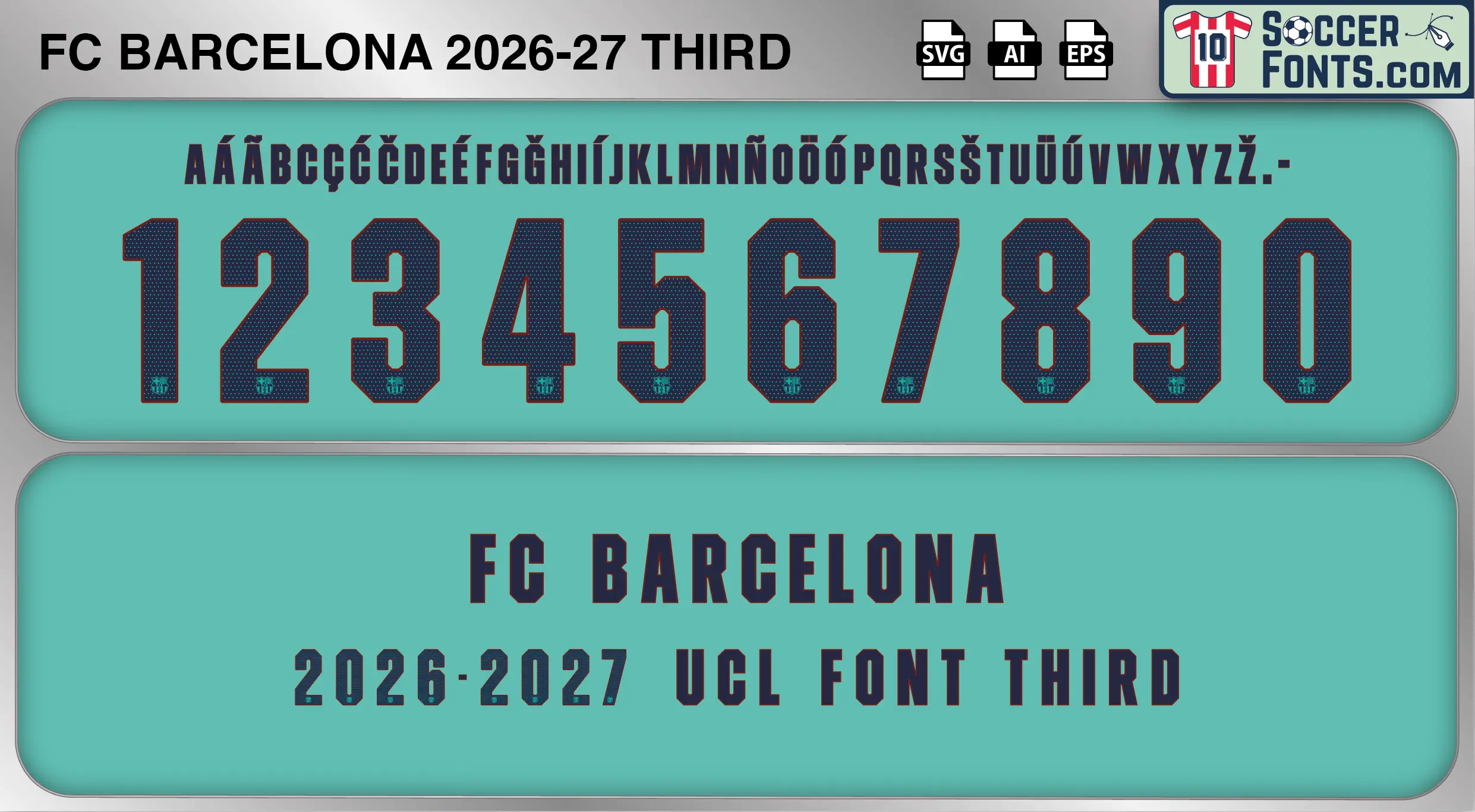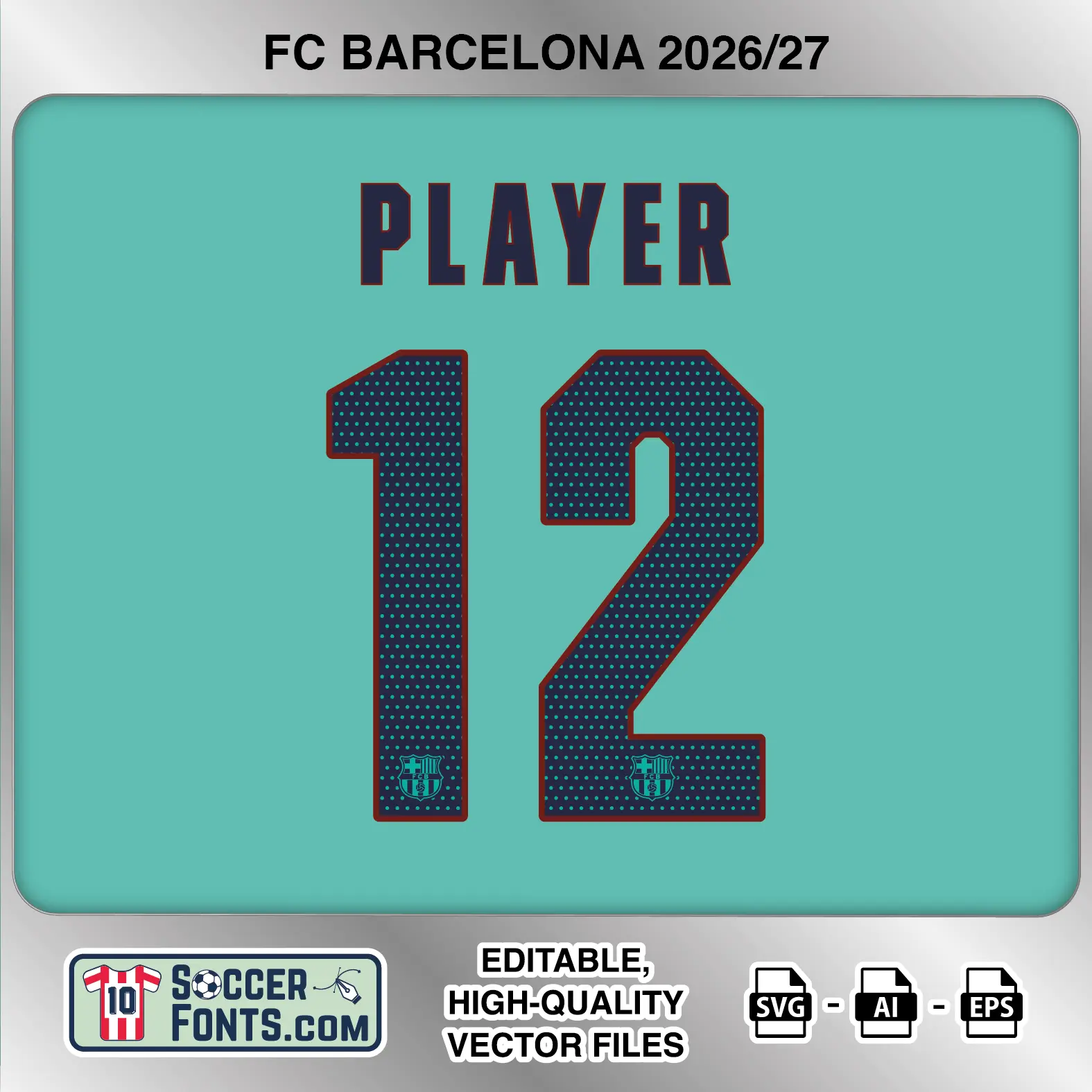
About FC Barcelona 2026-27 Font Third UCL
Download FC Barcelona 2026-27 Font Third UCL, an editable soccer jersey lettering design in vector format inspired by the FC Barcelona third kit style used during the 2026-27 football season. This football font artwork is prepared for football shirt recreations, custom jersey projects, football kit mockups and sports graphic design workflows.
The 2026-27 season opens another important chapter for FC Barcelona as the club continues competing for major domestic and European honors with a squad built around an exceptional generation of young talent. Lamine Yamal, Pedri and other key members of the first team carry the expectations of a club whose identity remains closely connected with La Masia, attacking football and UEFA Champions League nights. Barcelona enters the campaign with European success once again forming a central part of the season, while the club’s shirts continue to occupy a distinctive place within global football culture. The FC Barcelona 2026-27 Font Third UCL belongs specifically to this cup-era identity, accompanying the third kit when Barcelona steps outside the standardized La Liga lettering system.
The third shirt also adds another individual chapter to Barcelona’s long history of alternative kits in European competition. For 2026-27, the club has moved beyond the idea of using one identical custom nameset across every shirt, giving the third kit its own dedicated lettering identity for cup matches. This makes the FC Barcelona 2026-27 Font Third UCL particularly relevant to UEFA Champions League shirt recreations rather than ordinary La Liga versions. For collectors, designers and supporters, the combination of a dedicated third kit and European competition nameset connects the product directly with Barça’s 2026-27 Champions League era. The FC Barcelona 2026-27 Font Third UCL therefore represents a specific piece of the club’s season rather than a generic Barcelona font, documenting how individual competition shirts have become increasingly important within modern football kit culture.